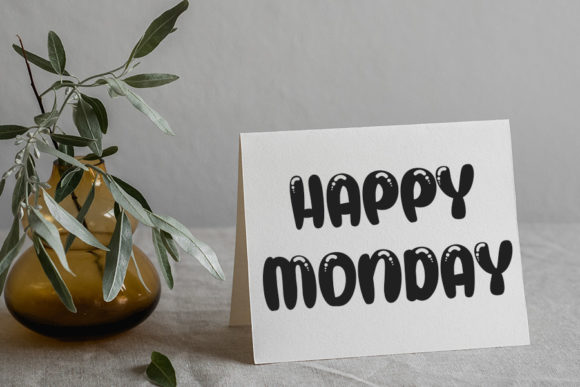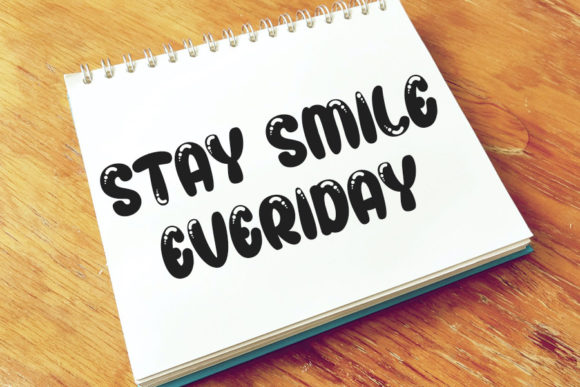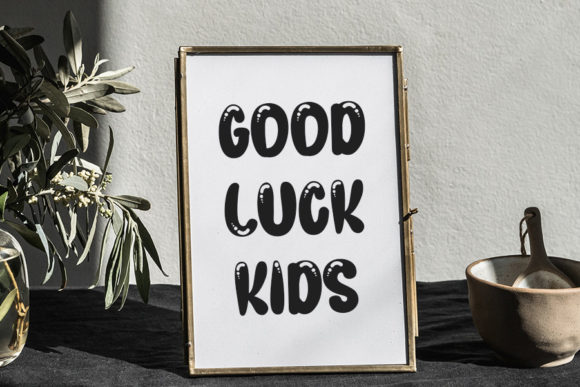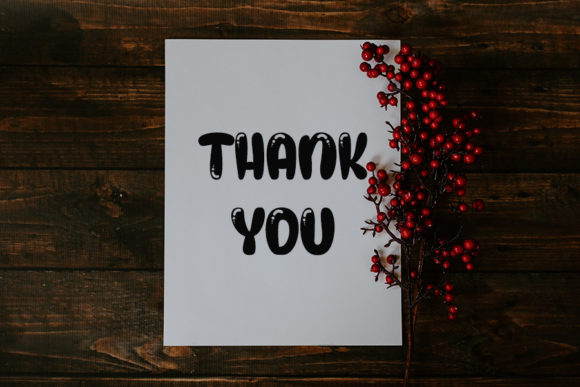
The Joy of Designing with Kids Journey Font
Remember that moment when a font choice completely transformed your design project? It’s like a missing piece of a puzzle finally falling into place. That’s exactly what happens when you add the Kids Journey Font to your creative toolkit. This fun, bubbly, and cool display font is a game-changer for designers looking to add a touch of whimsy to their work.
Kids Journey Font is designed to be a versatile asset for any project. Whether you’re creating a children’s book, a birthday invitation, or a marketing campaign, this font has the potential to elevate your design and leave a lasting impression. Its unique blend of playfulness and sophistication makes it a valuable addition to any font library.
Kids Journey Font Key Features
- Character Set: The font features a unique set of characters and symbols designed specifically for children, including alphabet letters, numbers, and punctuation marks.
- Unique Characteristics: The Kids Journey Font features a playful and educational design, with characters that are both fun and easy to recognize, making it ideal for children’s books, educational materials, and websites.
Review: Kids Journey Font
Overall, I think the Kids Journey Font is a decent choice for educational and children’s content. ✨ The font has a playful, adventurous feel to it, which makes it perfect for storytelling and learning materials.
- ✨ Fun and adventurous feel, making it suitable for children’s content.
- ✨ The font is highly legible, even at smaller sizes.
- ✨ It has a good balance of curves and straight lines, making it easy to read and understand.
- ⚠️ The font may not be the best choice for formal or professional content, as it can come across as too playful.
- ⚠️ Some characters, such as the ‘g’ and ‘y’, can be a bit difficult to read at certain angles.
- ⚠️ The font may not be as versatile as some other fonts, with limited styles and variations available.
In conclusion, the Kids Journey Font is a solid choice for children’s content and educational materials. While it may have some limitations, its playful feel and high legibility make it a great option for those looking for a fun and engaging font.
Getting the Most Out of the Kids Journey Font
Use the Kids Journey Font for:
1. Children’s books and educational materials.
2. Designing for kids’ parties and events.
3. Creating engaging social media graphics for kids.
The Kids Journey Font is ideal for:
1. Branding for kids’ products and services.
2. Creating a consistent visual identity for children’s content.
3. Designing for kids’ websites and apps.
Alternatives to Kids Journey Font
Great Vibes is a modern, handwritten font perfect for creating a fun and playful atmosphere. It’s ideal for use in children’s books, educational materials, and marketing campaigns targeting a younger audience. Great Vibes has a more relaxed feel compared to Kids Journey Font, which makes it suitable for casual and creative projects.
Lobster is a script font that exudes a sense of whimsy and elegance. It’s great for use in branding, signage, and digital products targeting children and young adults. Lobster has a more sophisticated feel compared to Kids Journey Font, making it suitable for projects that require a touch of luxury and sophistication.
Alex Brush is a beautiful, handwritten font that’s perfect for use in invitations, stationery, and other design projects that require a touch of elegance and sophistication. It’s also suitable for children’s books and educational materials that require a more refined and mature feel. Alex Brush has a more refined feel compared to Kids Journey Font, making it suitable for projects that require a sense of sophistication and refinement.